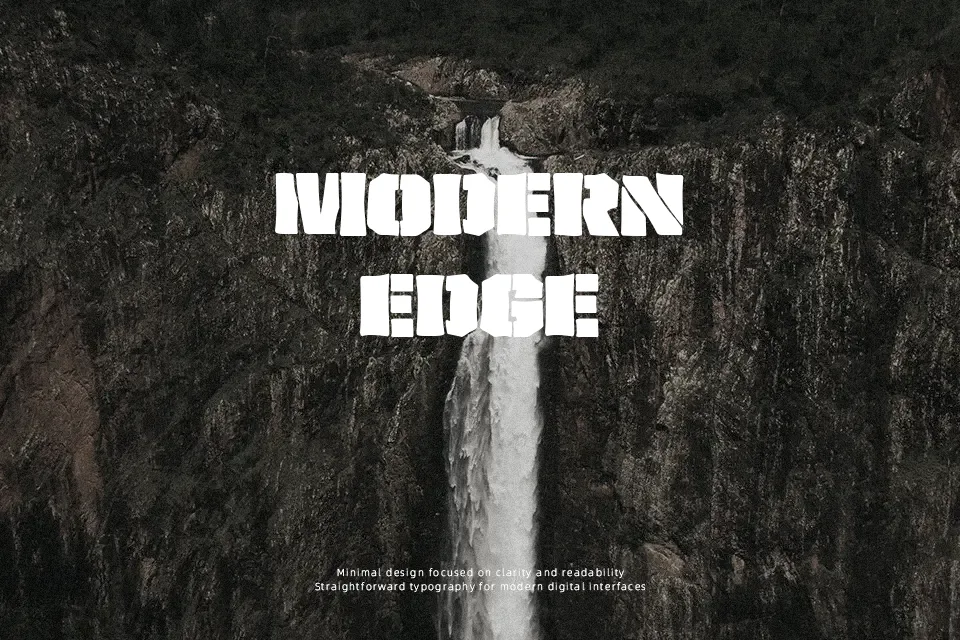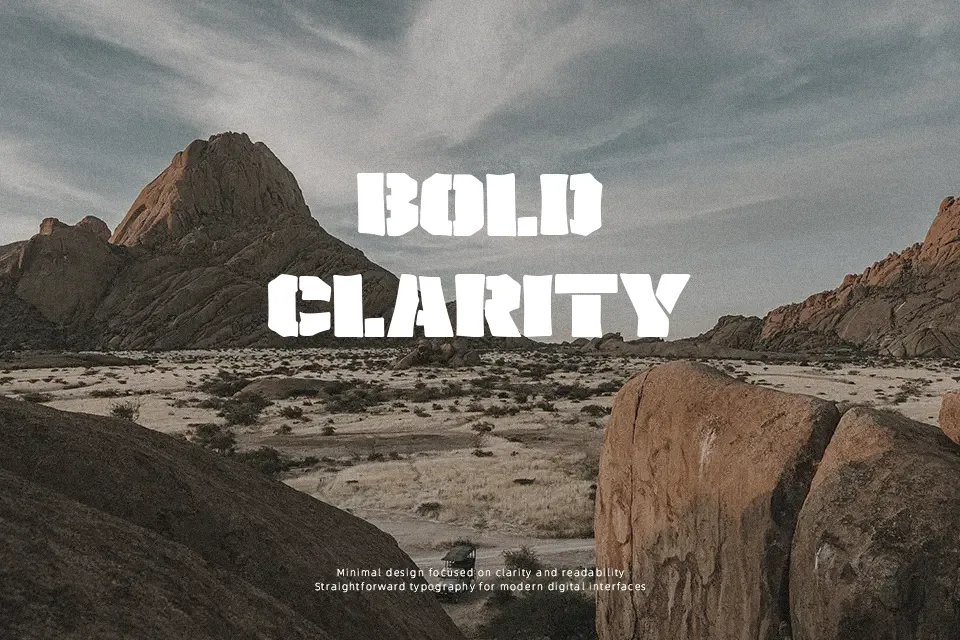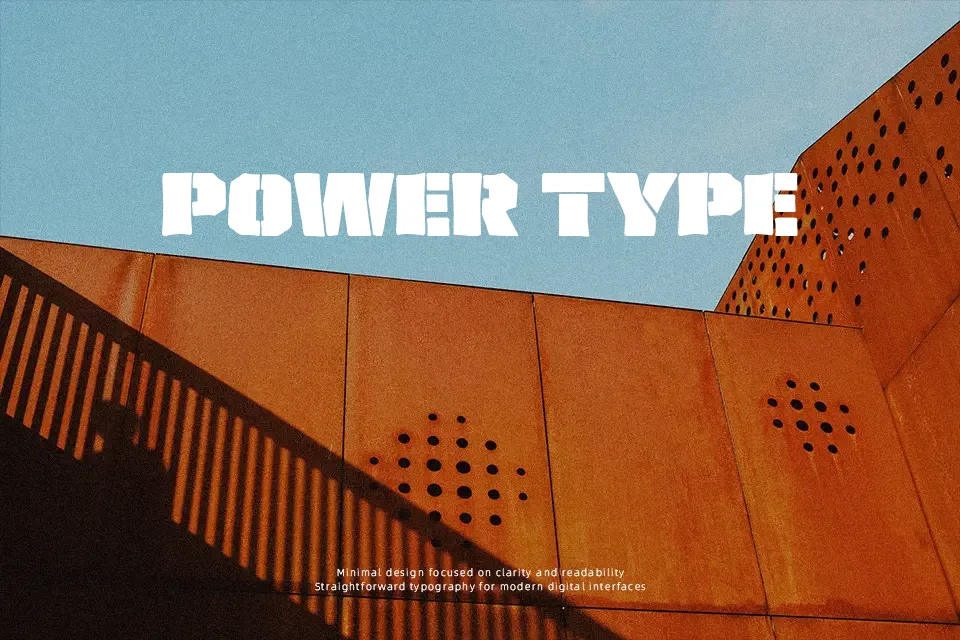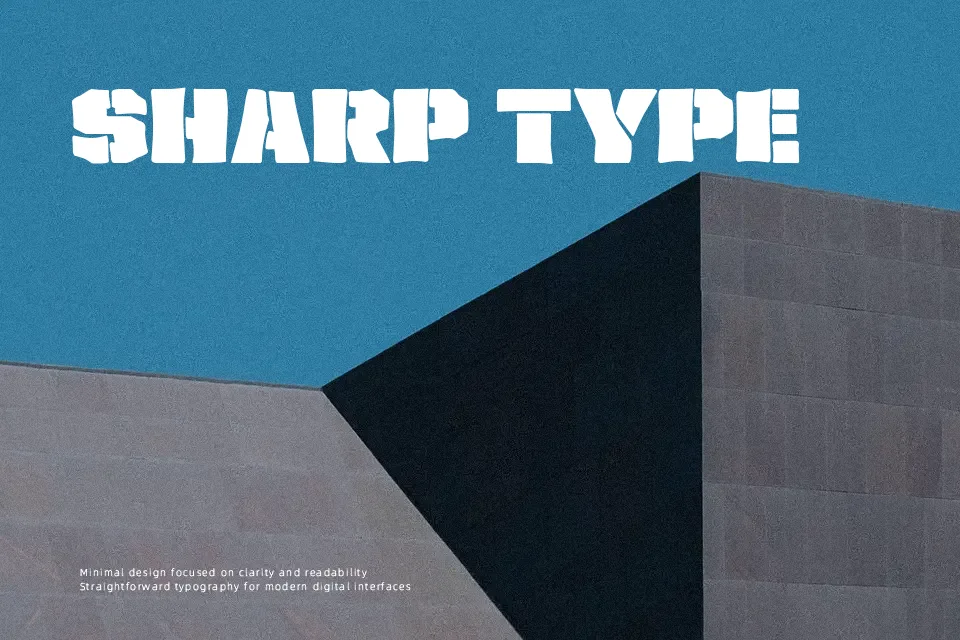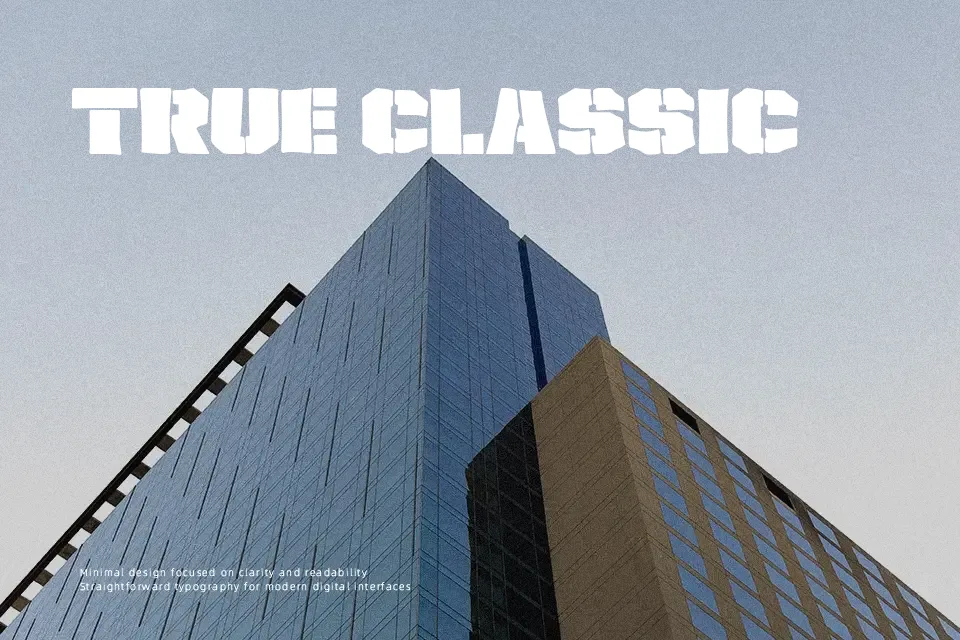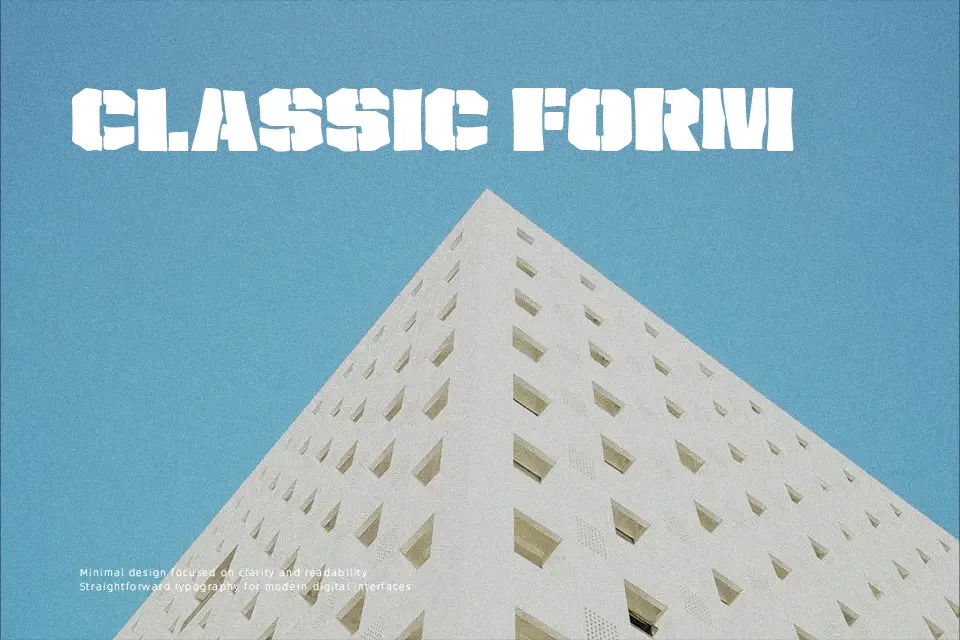
Army of the Ending Font
The letterforms in Army of the Ending are wide, extra-bold, and structured around geometric block shapes — each character carries uniform stroke weight with no contrast, built on stencil-cut principles that give gaps and breaks a deliberate, tactical look. The expanded width pushes letters apart visually, making headlines feel dominant and loud. It works well at large sizes in poster headers, apparel graphics, and war-themed editorial work where aggressive presence is the point. However, it struggles badly at small sizes — the stencil breaks in the letterforms lose definition below 18–20pt, making it unsuitable for body text or fine-print use. Designers expecting versatility across print scales will find it limiting.
Best For:- War-themed book or magazine covers
– Band or concert poster headers
– T-shirt and apparel graphic printing
– Social media channel art and banner designs
Not Ideal For:- Body text or paragraph copy at any size
– Corporate branding or professional documents
– Small-scale print such as business cards or footnotes
– UI labels or digital interface copy
Perfect for advertising, branding, and gaming, with a bold and display style.